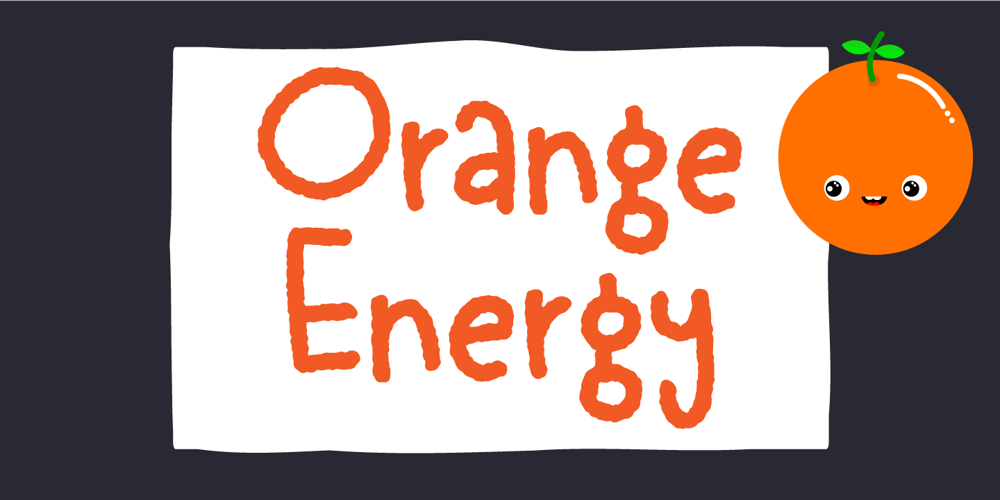
Orange Energy
Orange Energy font
Orange Energy Font Family was designed by Jakob Fischer and published by PizzaDude.dk. Orange Energy contains 2 styles and family package options. A powerful handmade font with a crunchy outline and a lot of attitude. It’s slightly based upon my own handwriting, when I really really concentrate on making each letter both legible and related to the other letters. Otherwise my handwriting is really garbage! :)I’ve added ligatures of repeating letters, such as bb, cc, dd, ee… and more – a great way to sparkle a little more energy in the font and the design it’s used for.